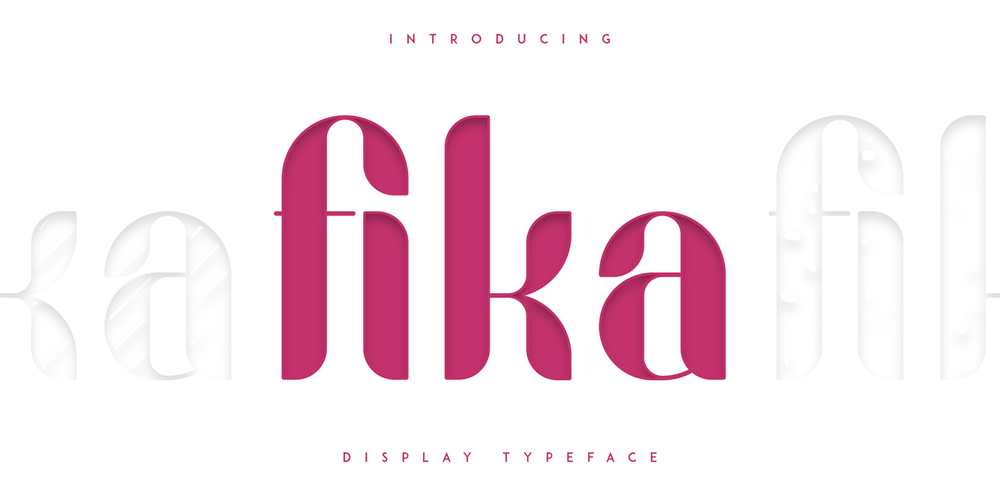
Fika VP Font Family was designed by Vladimir Fedotov, Plamen Petrov and published by VP Creative Shop. Fika VP contains 3 styles and family package options. Introducing Fika Display TypefaceFika is bold, fun typeface that contains 4 fonts to enchant your next project. They are loaded alternate glyphs, ligatures and multilingual support. Very versatile fonts that works great in large and small sizes.Fika is perfect for branding projects, home-ware designs, product packaging, magazine headers – or simply as a stylish text overlay to any background image. Uppercase, lowercase, numeral, punctuation & Symbol Regular Outline Lines Rough Alternate glyphs Ligatures Multilingual support How to access alternate glyphs?To access alternate glyphs in Adobe InDesign or Illustrator, choose Window Type & Tables GlyphsIn Photoshop, choose Window Glyphs. In the panel that opens, click the Show menu and choose Alternates for Selection. Double-click an alternate’s thumbnail to swap them out.Feel free to contact me if you have any questions!Mock ups and backgrounds used are not included.Thank you! Enjoy!